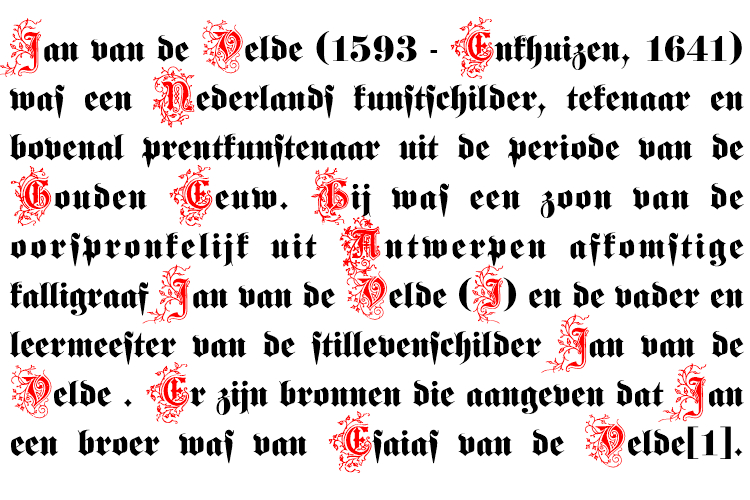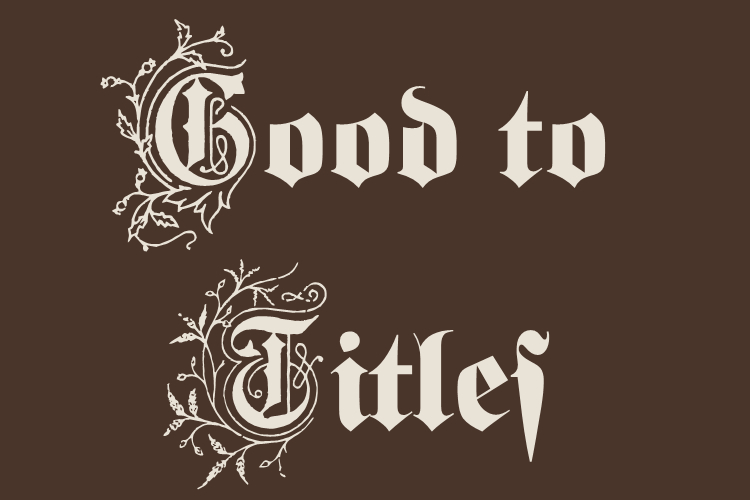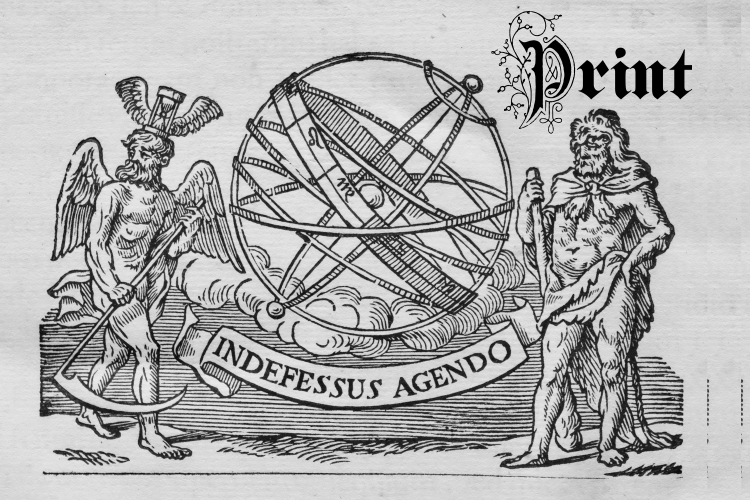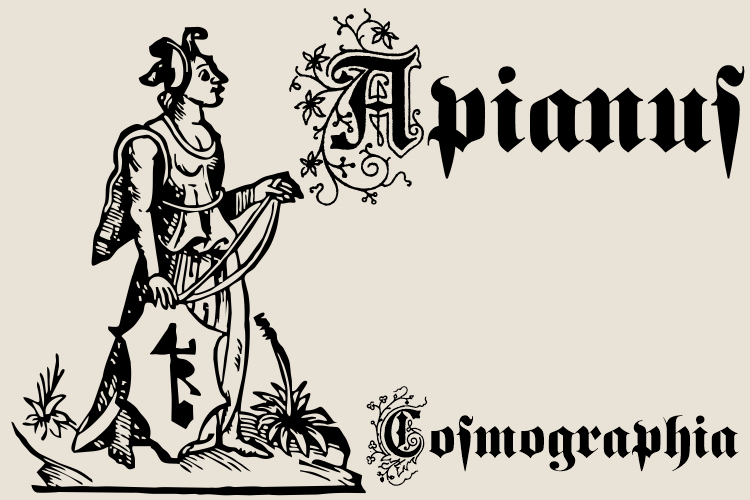
Gotteslob Font
About Gotteslob Font
Gotteslob is a cool blackletter font. This font is PUA encoded which means you can access all of the glyphs and swashes with ease!